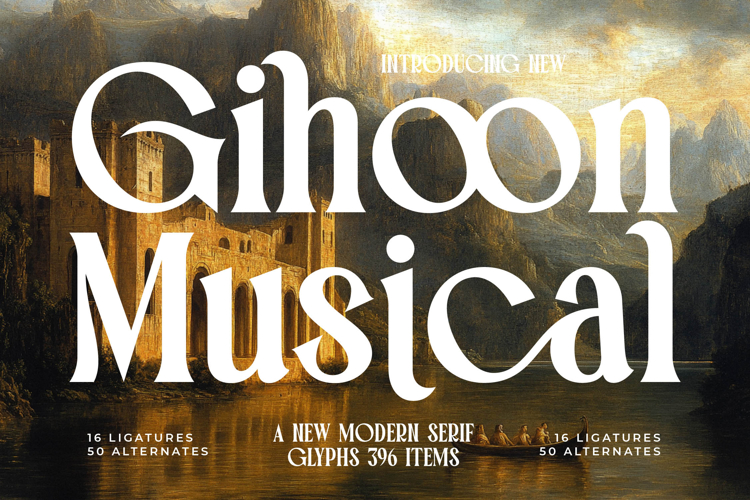
Gihoon Musical - New Modern Serif Font
Elevate your designs with the breathtaking sophistication of Font Gihoon Musical - New Modern Serif Font Serif Display. This exquisite typeface masterfully blends classic serif elegance with a contemporary edge, offering an unparalleled aesthetic for projects demanding refinement and distinctive character. Its harmonious balance of traditional gravitas and modern fluidity creates an unforgettable visual impression that instantly communicates luxury and prestige.
Experience the powerful visual impact delivered by Font Gihoon Musical - New Modern Serif Font Serif Display’s meticulously crafted letterforms. Featuring high-contrast strokes and delicately flared serifs, this font commands attention without sacrificing readability. Each character is imbued with a sense of graceful rhythm, making it an ideal choice for display typography where clarity meets compelling artistry.